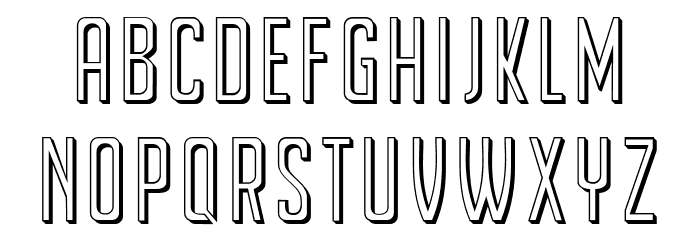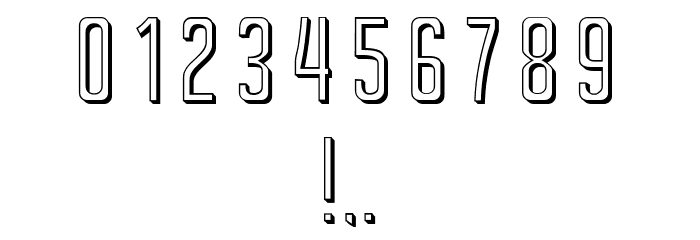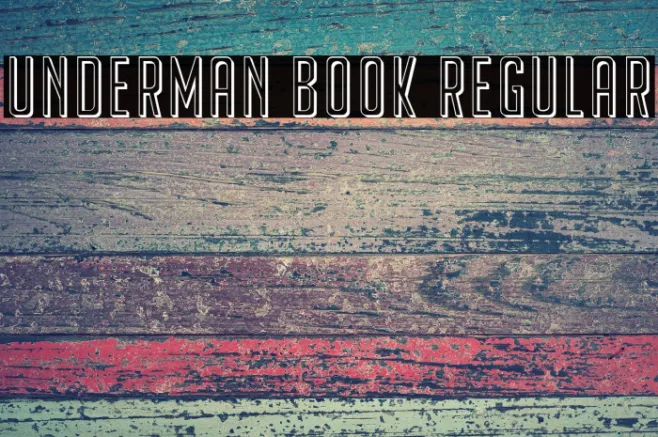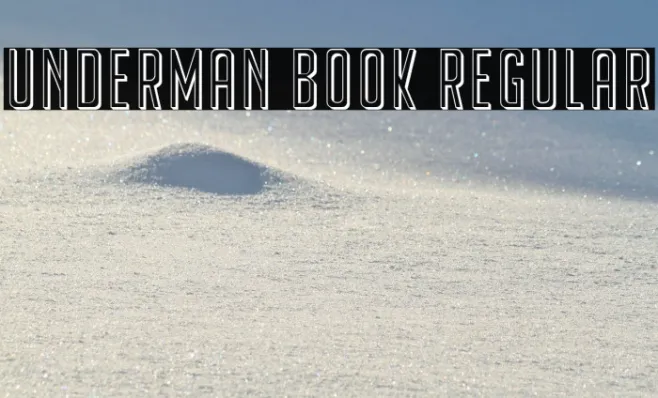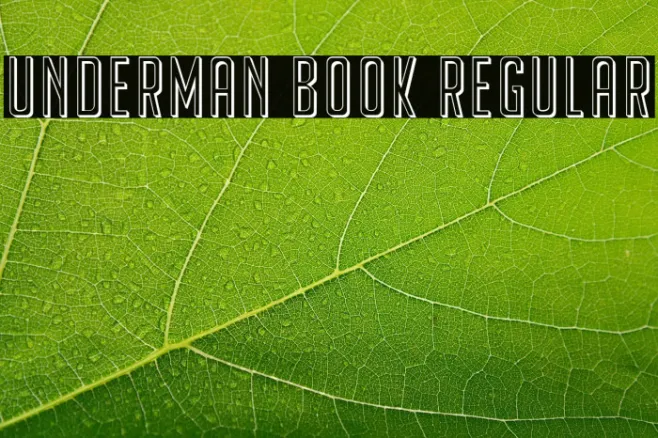
Underman Book Regular Font
This font features a modern and geometric design with clean lines and a distinct outline style. The uppercase and lowercase letters maintain a consistent height, creating a uniform appearance. The characters are constructed with a double-line effect, giving them a dimensional look. The numerals and special characters follow the same design principles, ensuring cohesion across all elements. The overall aesthetic is contemporary and stylish, making it suitable for various design applications.
A modern, geometric font with a double-line outline style.
- Proposed Projects: Ideal for branding, posters, headlines, and digital media where a modern and eye-catching typeface is desired.